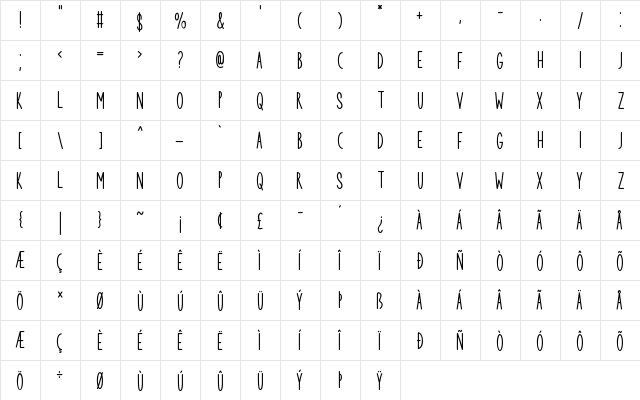
Vacation Planner Regular
Design Context for Vacation Planner Typeface
Vacation Planner offers clean, dependable letterforms without strong stylistic allegiance, making it a practical choice for designers who need flexibility.